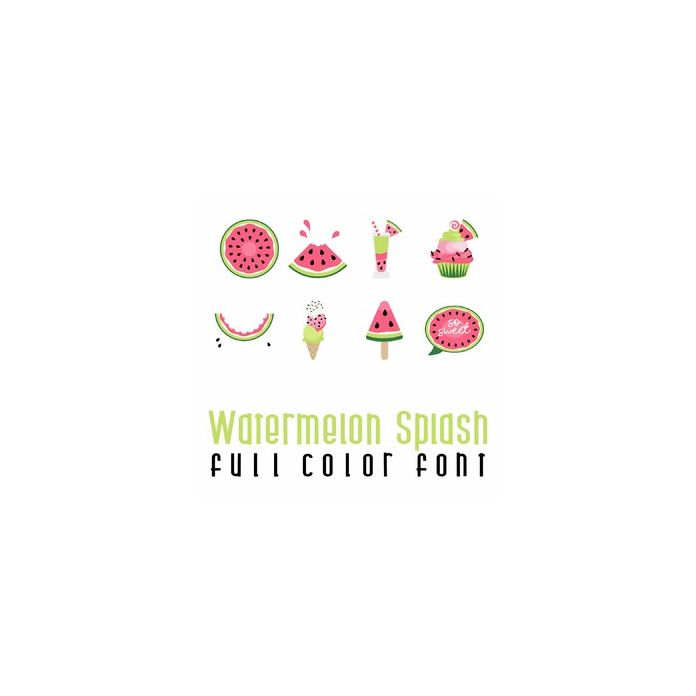
This adorable full color doodlebat font features fun watermelons and watermelon treats. Perfect for summer, cards, crafts, gifts, decor, scrap book pages, planner stickers and more!